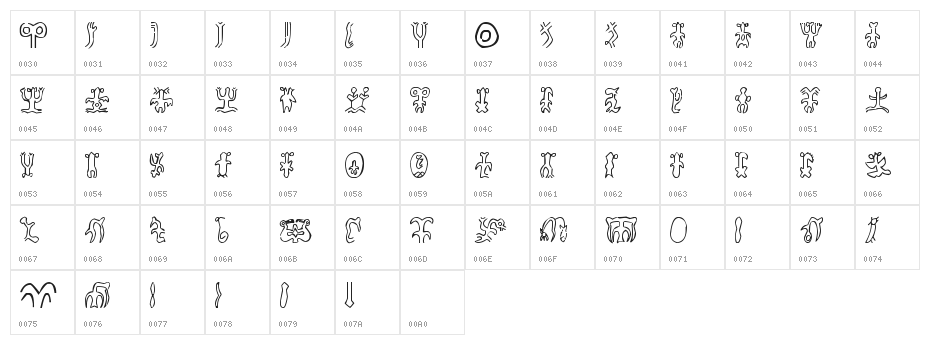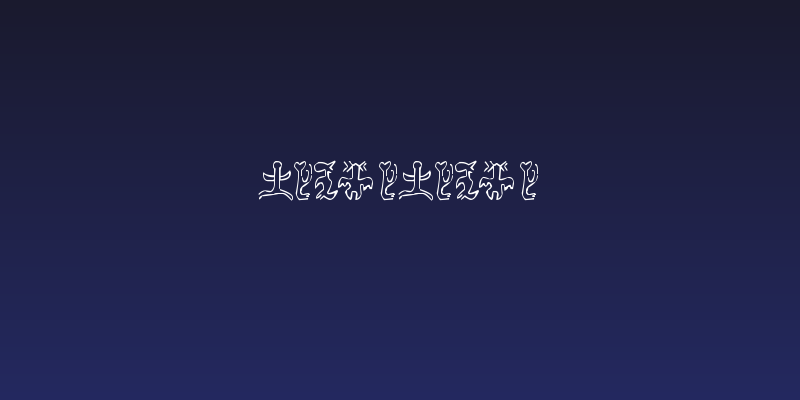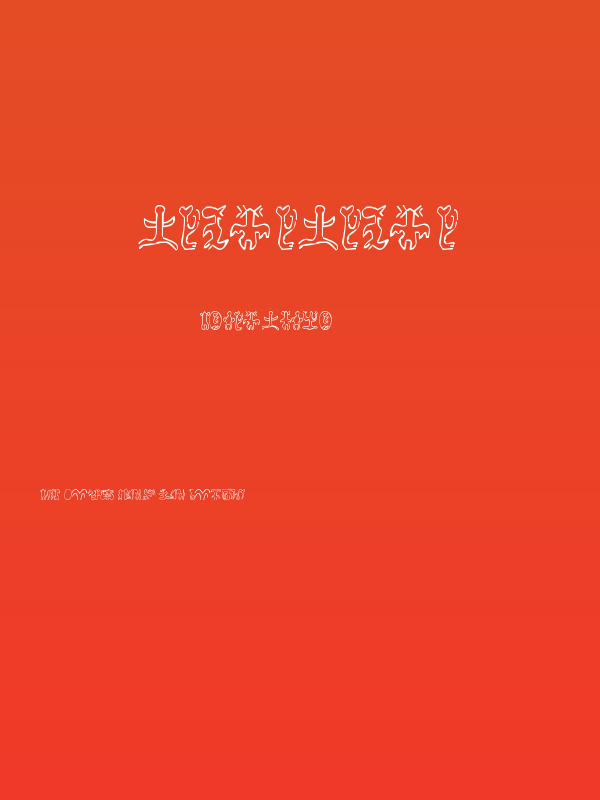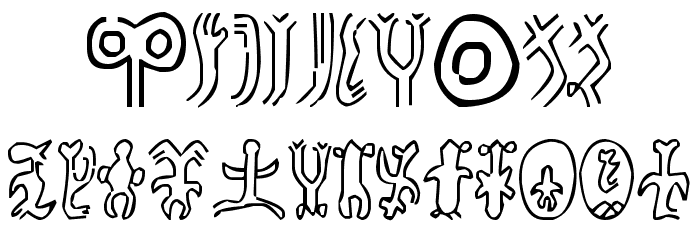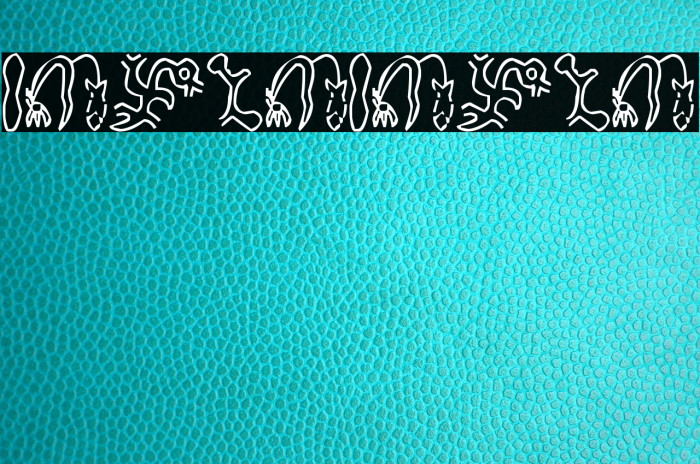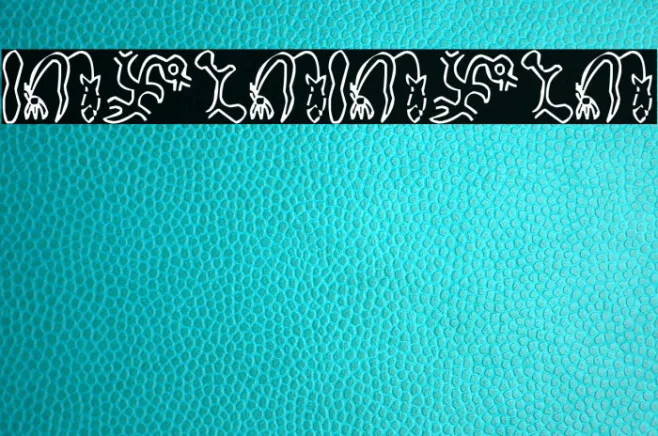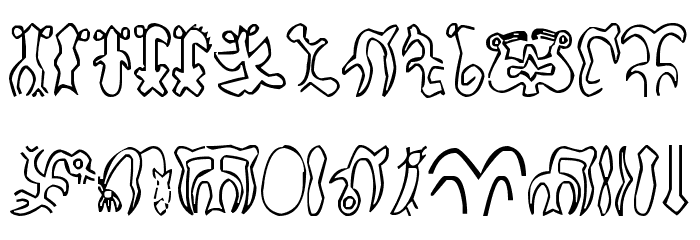
rongorongo Font
rongorongo Description
Highly decorative and pictographic typeface inspired by ancient glyphs, featuring intricate, abstract shapes and organic forms with a hand-drawn appearance.
| Overall Style | Decorative, Ancient, Pictographic |
| Use Case | Logos, Headlines, Posters, Artistic projects |
| Proposed Projects | Themed posters, fantasy book covers, historical or archaeological displays, game titles, artistic branding. |